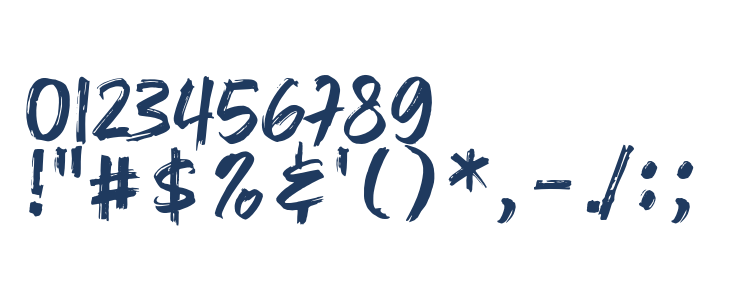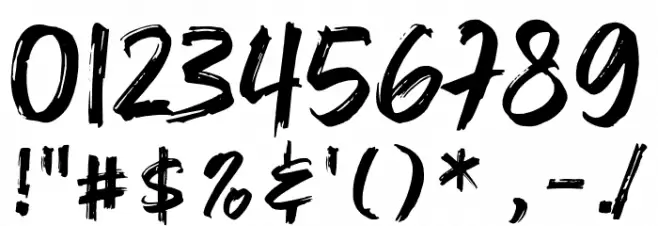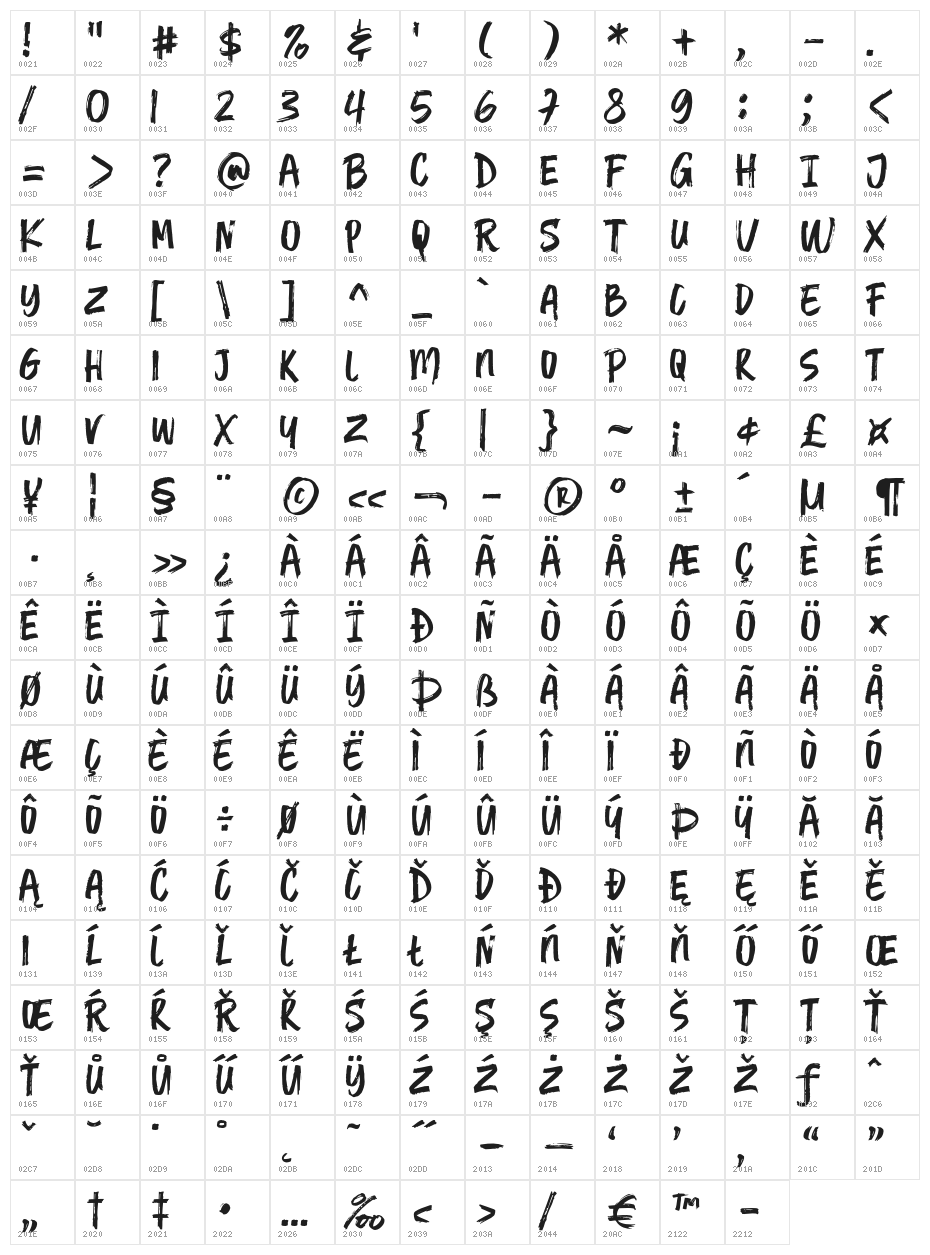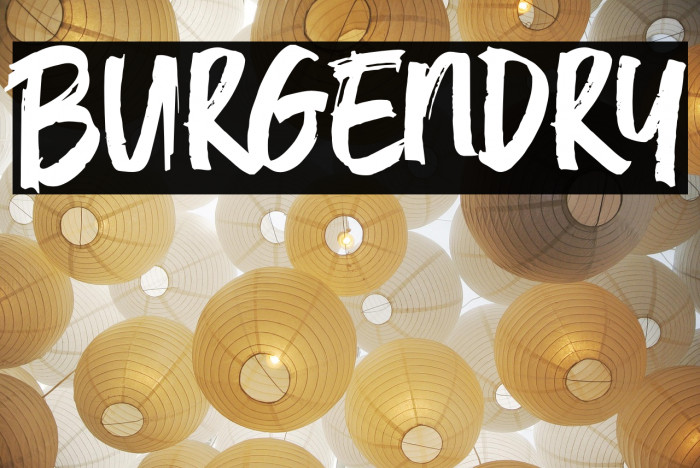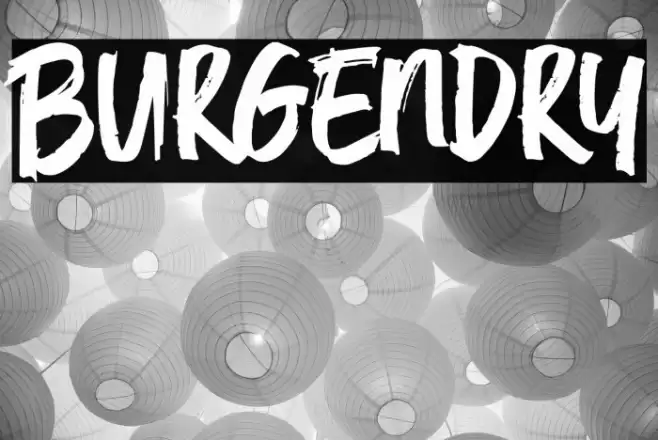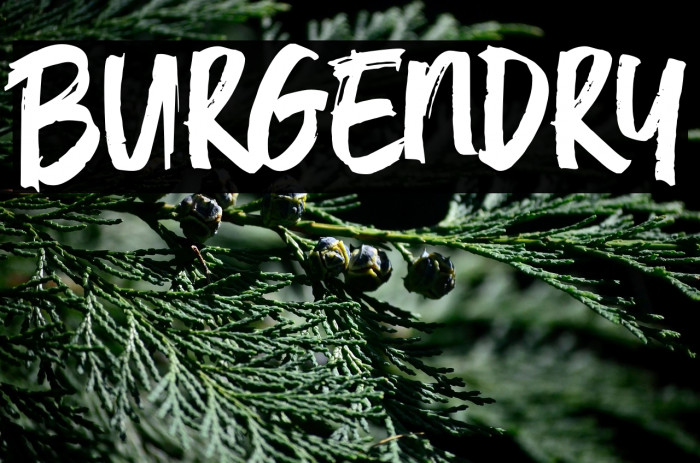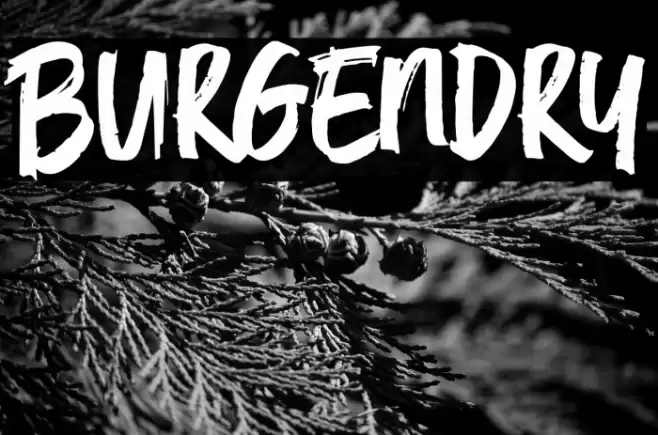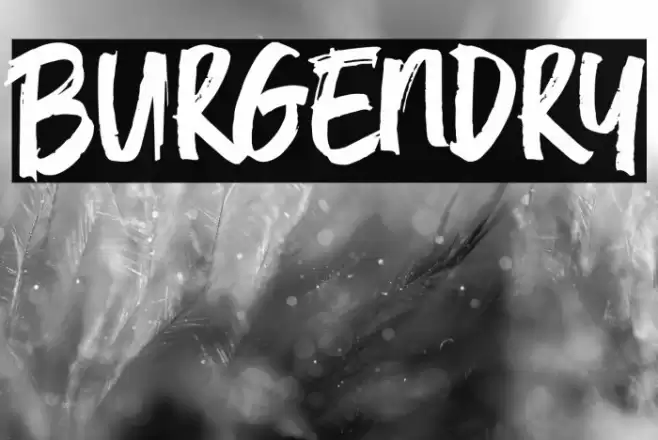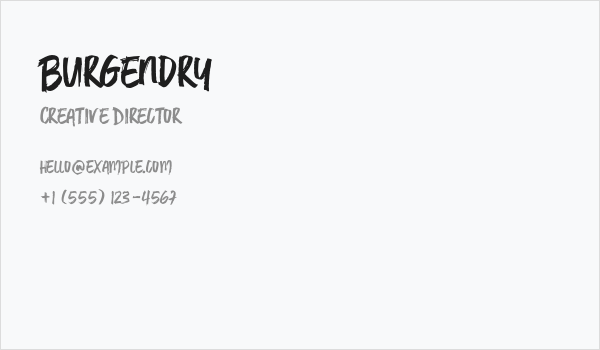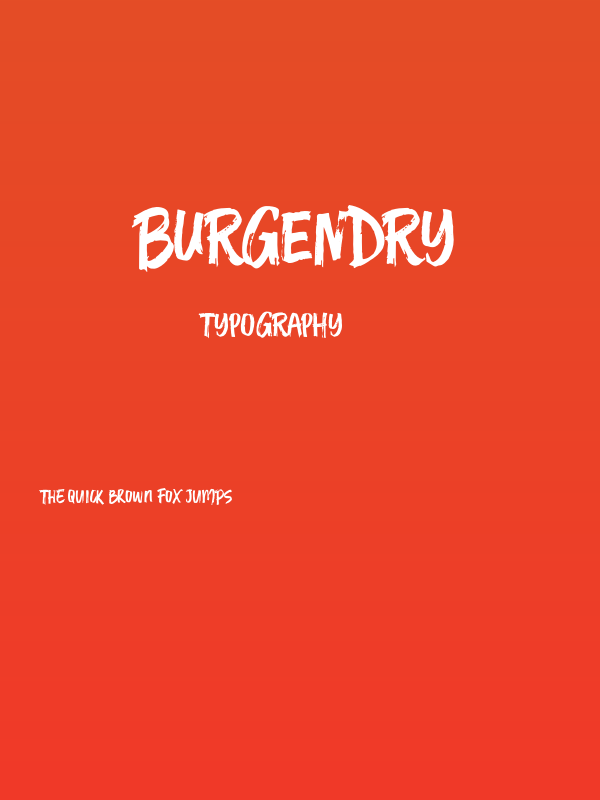
Burgendry Font
Burgendry Description
This font exhibits a bold and expressive brush style, characterized by its dynamic and energetic strokes. The letters are crafted with a rough, hand-painted appearance, giving it a raw and artistic feel. The uppercase and lowercase letters maintain a consistent style, with varying stroke widths that add to its lively and spontaneous look. Numbers and special characters follow the same aesthetic, ensuring a cohesive design throughout. This font is ideal for projects that require a strong visual impact and a sense of creativity.
| Proposed Projects | Ideal for posters, album covers, branding, and any creative projects that require a bold statement. |